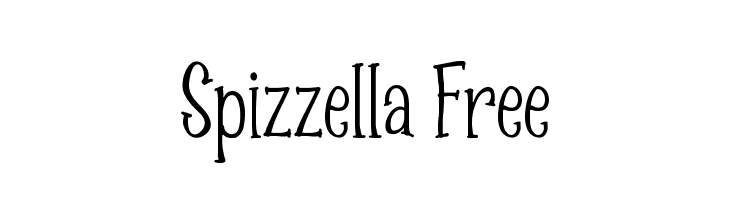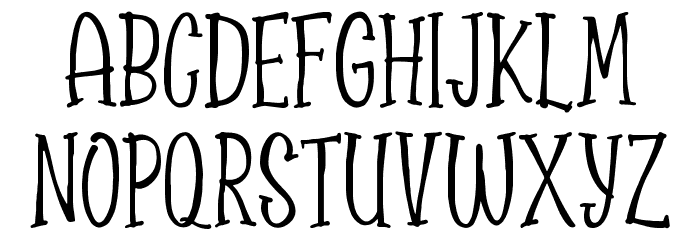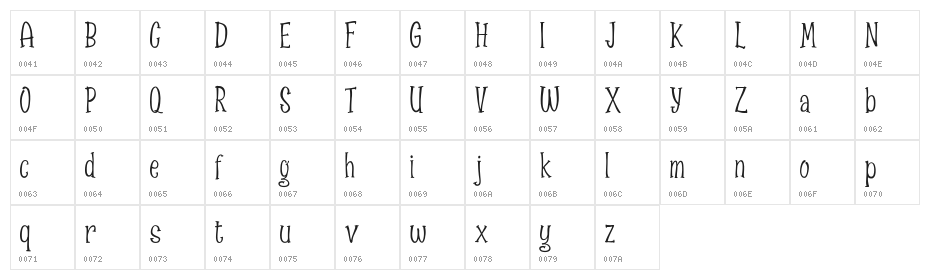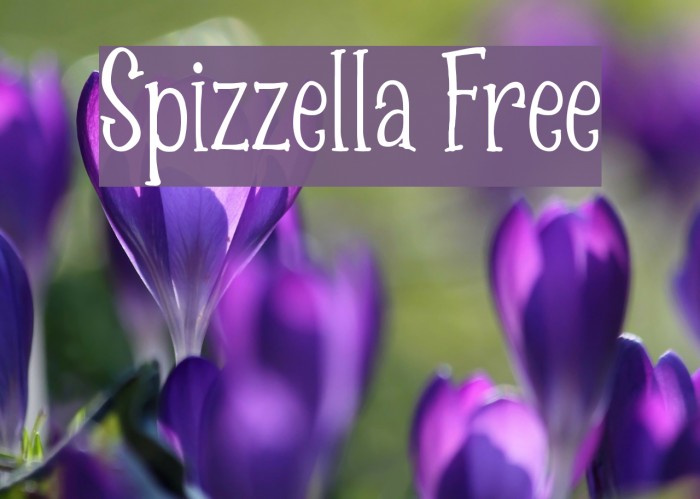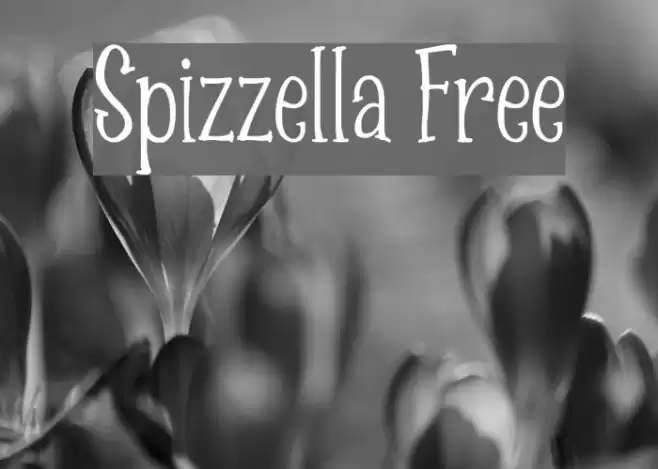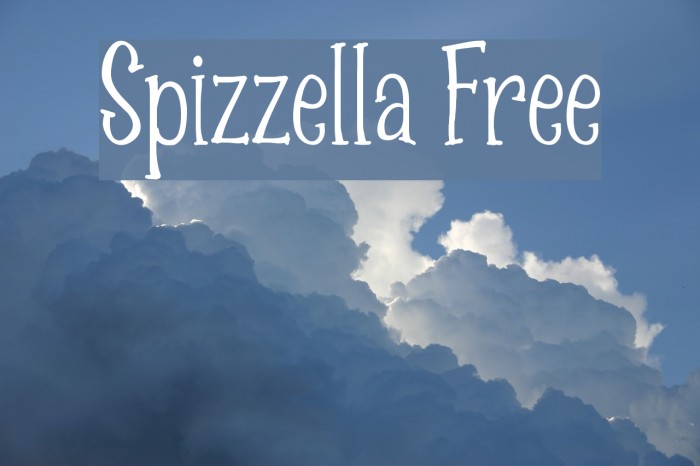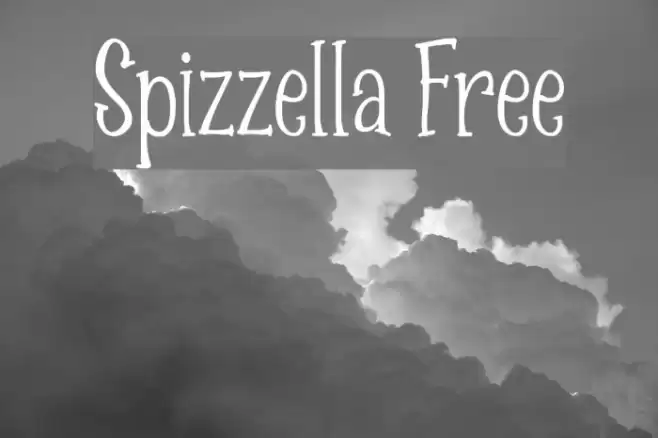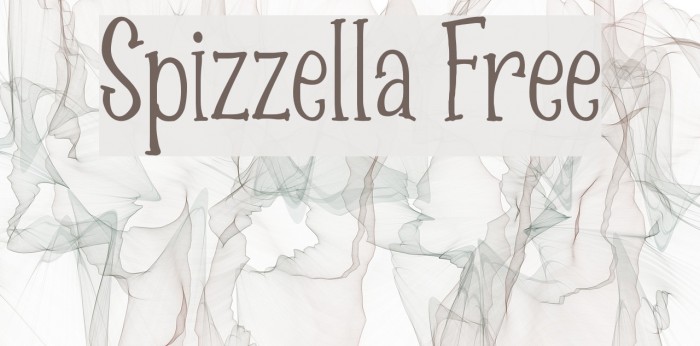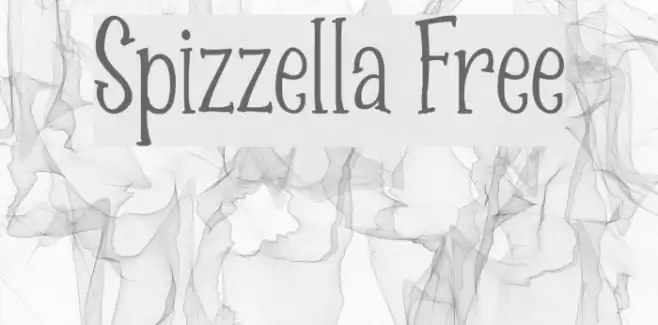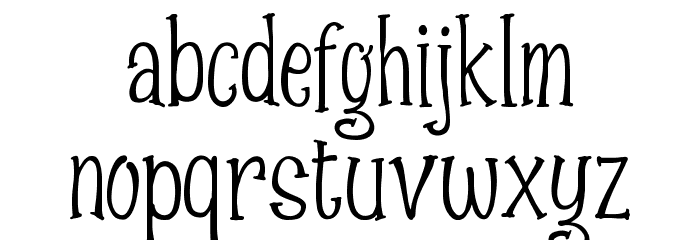
This font features a playful and whimsical design with a hand-drawn aesthetic. The characters have a slightly irregular shape, giving them a unique and informal appearance. The strokes are moderately thick with a slight variation in width, adding to the casual feel. The font maintains a consistent baseline, but the heights of the letters vary, contributing to its quirky charm. The overall look is reminiscent of a handwritten style, making it suitable for projects that require a personal touch.
Use CaseHeadlines, Logos, Creative projects
Proposed ProjectsIdeal for children's books, greeting cards, playful branding, and creative posters.